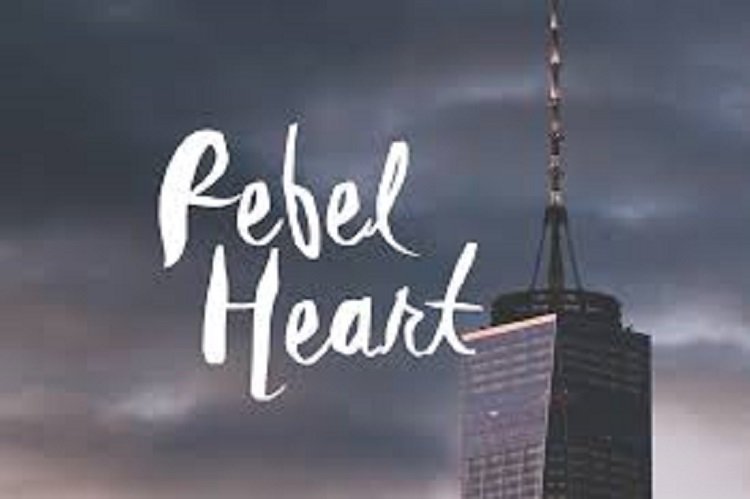
Rebel Heart Font
RebelHeart is a perfectly imperfect free font that you can use to give your design a cool natural brush looking. All letters well-bounced irregularly which makes Rebel Heart font is just look like a natural brush lettering.